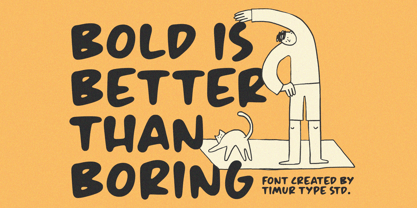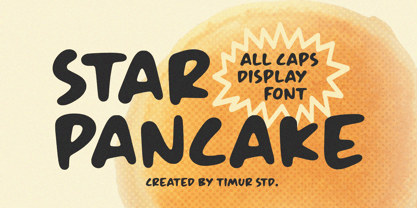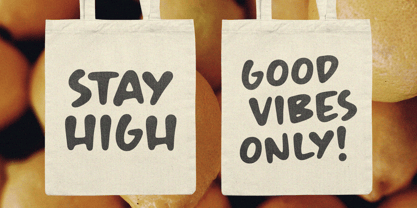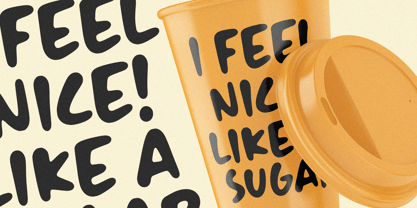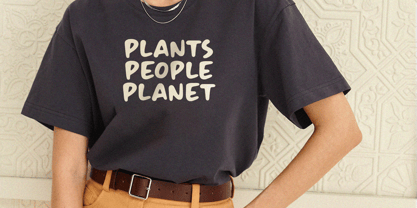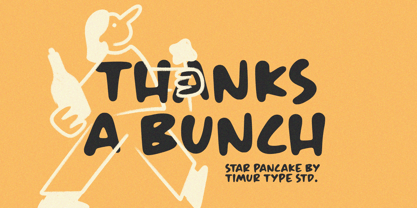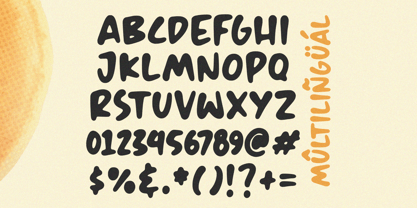
Star Pancake
by Timurtype
The Star Pancake Font Family was designed by Wara Sigit Tri Pamungkas and published by Timurtype. Star Pancake contains 1 styles. More about this family
Introduced by Timurtype Studio!
Star Pancake is a All Caps Display Font
This font is a bold and playful all-caps display font with a quirky, retro vibe. Its chunky letterforms and dynamic curves make it perfect for eye-catching headlines, logos, and fun designs that demand attention.
Star Pancake Font also supports multilingualism
Designers: Wara Sigit Tri Pamungkas
Foundry: Timurtype